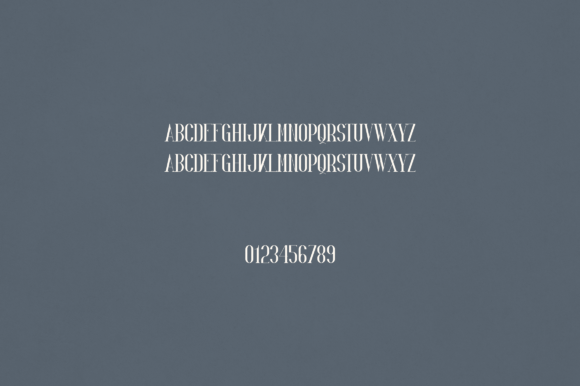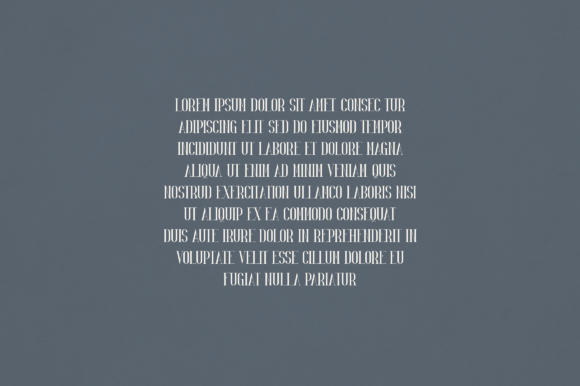
Introducing Enid Font: Elevate Your Typography with Elegance and Versatility
In the world of typography, a font can make or break the visual identity of a project. For designers and crafters seeking to infuse their work with a touch of sophistication and uniqueness, the Enid Font is an exceptional choice. This elegant and versatile serif font is designed to transform your typography, making every logo, branding element, headline, and plain text truly enchanting.
What Makes Enid Font Stand Out?
Enid Font is not just another serif font; it’s a game-changer for anyone looking to add a layer of elegance and professionalism to their designs. Its versatility makes it suitable for a wide range of applications, from branding projects and home-ware designs to product packaging and magazine headers. Moreover, it can serve as a stylish text overlay for any background image, seamlessly integrating into your visual projects.
Whether you’re working on a branding project that requires a sophisticated touch, designing home-ware products that need a bit of elegance, or crafting product packaging that stands out on shelves, Enid Font is the perfect companion. Its classic yet modern aesthetic ensures that your designs are not only visually appealing but also timeless.
Branding Projects
For branding, the font is crucial as it sets the tone for your brand’s identity. Enid Font, with its elegant serifs and clean lines, offers a professional and luxurious feel that can elevate your brand’s image. It’s ideal for logos, business cards, and any marketing materials where you want to make a lasting impression.
Home-Ware Designs
When it comes to home-ware designs, such as labels for kitchenware, decorative items, or even packaging for home goods, Enid Font brings a touch of class and sophistication. Its readability and aesthetic appeal ensure that your designs are both functional and beautiful.
Product Packaging
In product packaging, standing out is key. Enid Font can help you achieve that with its unique and captivating style. Whether you’re packaging gourmet foods, cosmetics, or luxury goods, this font can add an element of high-end quality to your product.
Magazine Headers and Text Overlays
For editorial designs, such as magazine headers, or for adding text overlays to background images on websites or social media, Enid Font provides a stylish and readable solution. Its versatility in size and color allows it to be used effectively in various contexts, ensuring your text is always a focal point.
Why Choose Enid Font?
Choosing Enid Font for your design projects comes with several benefits:
- Elegance and Versatility: Offers a sophisticated look that can be adapted to various design needs.
- Unique Typography: Helps in creating truly unique typography that stands out.
- Wide Applicability: Suitable for branding, home-ware designs, product packaging, magazine headers, and more.
- Easy to Read: Ensures readability across different sizes and applications.
Enid Font is more than just a serif font; it’s a tool that can elevate your design projects to new heights of elegance and sophistication. Its versatility, combined with its classic yet modern aesthetic, makes it an invaluable asset for designers and crafters looking to make a statement with their typography. Whether you’re working on a branding project, home-ware design, product packaging, or simply looking for a stylish text overlay, Enid Font is an excellent choice that promises to enchant every aspect of your design.
Discover the potential of Enid Font in your next project and experience the difference it can make in creating visually stunning and impactful designs.